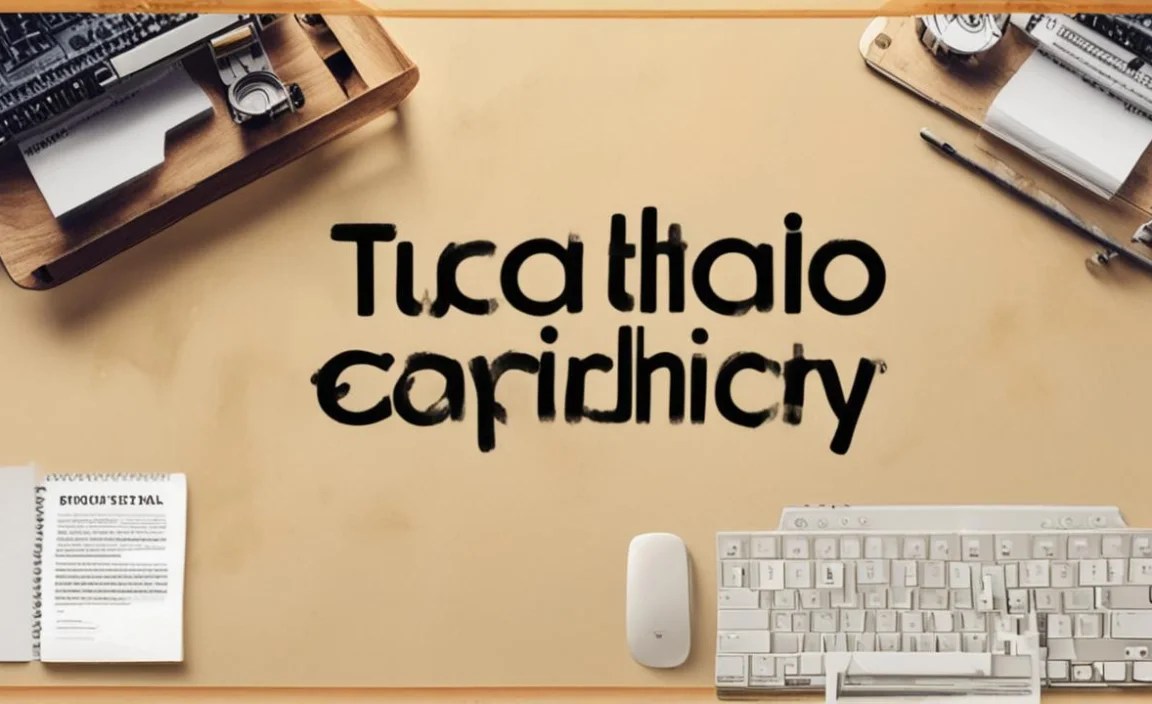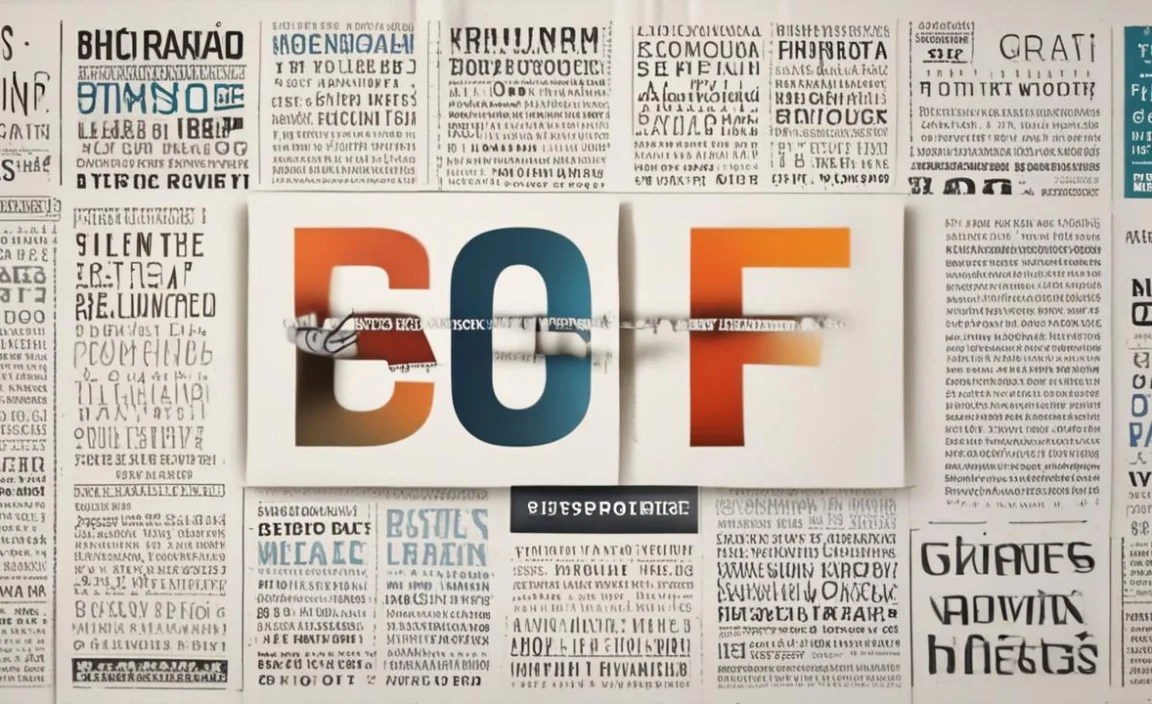
Unlock creative uses of typography to elevate your designs! Learn genius hacks for font pairing, hierarchy, and visual appeal to make your projects stand out. Discover how thoughtful type selection and arrangement can transform ordinary content into extraordinary visual experiences, even for beginners.
Typography is more than just picking pretty fonts; it’s the art of making written words look amazing and readable. Sometimes, it feels like everyone else knows a secret design language, leaving you staring at a blank canvas with no idea where to start with your fonts. Don’t worry! This guide is here to demystify typography and unlock your creative potential. We’ll explore simple yet powerful techniques to make your text sing, helping you design with confidence and flair, no matter your experience level.
Unlocking the Magic: Why “Creative Uses of Typography” Matters
Think about your favorite websites, books, or posters. What draws you in? Often, it’s the expert use of typography. It guides your eye, sets the mood, and makes information digestible. But what exactly are “creative uses of typography in design”? It’s about moving beyond basic font choices and using type as a dynamic design element. This isn’t about complex coding or advanced software; it’s about smart, intentional choices that make your visuals pop.
For beginners, the world of fonts can seem overwhelming. Sans-serif? Serif? Display? What’s the difference, and how do you make them work together? The good news is that a few creative hacks can dramatically improve your designs. We’ll dive into actionable tips you can use right away.
Beyond the Basics: Genius Design Hacks for Typography
Let’s get practical. These hacks are designed to be easy to implement and will immediately boost the visual appeal and effectiveness of your designs.
1. The Power Duo: Smart Font Pairing
Choosing fonts that complement each other is crucial. It’s like picking clothes for an outfit – they need to go together! A common technique is to pair a serif font with a sans-serif font.
- Serif Fonts: Think of these as the classic, traditional fonts with little “feet” or strokes on the ends of letters. They often feel more formal, sophisticated, and are excellent for body text because the serifs can help guide the eye along the line. Examples include Times New Roman, Georgia, and Garamond.
- Sans-Serif Fonts: These fonts lack those little feet. They appear cleaner, more modern, and minimalist. They’re great for headings, titles, and digital interfaces. Examples include Arial, Helvetica, Open Sans, and Lato.
The Hack: Pair a bold, attention-grabbing sans-serif for your headlines with a readable, elegant serif for your paragraph text. Or, try the reverse! A formal serif heading can be beautifully contrasted with a clean sans-serif body. Always choose fonts with different personalities but similar x-heights or weights to ensure harmony. Tools like Google Fonts’ pairing tutorials offer great starting points.
2. Hierarchy is Your Best Friend
Hierarchy means guiding the reader’s eye through your content in order of importance. Typography is your primary tool for this. How do you create it? Size, weight, and color!
- Size Matters: Your main title should be the largest. Subheadings should be smaller than the title but larger than the body text.
- Weight Wisdom: Use bold fonts for emphasis and to make headings stand out. Light or regular weights are usually best for body text.
- Color Contrast: While often subtle, color can differentiate sections. A dark color for your main text on a light background offers good contrast. Use accent colors sparingly for calls to action or key phrases.
The Hack: Create a clear typographic scale. This is a system of consistent font sizes and weights. For example:
| Element | Font Style | Size |
|---|---|---|
| Main Title | Sans-Serif, Bold | 36px |
| Section Heading | Sans-Serif, Semi-Bold | 24px |
| Sub-heading | Serif, Italic | 18px |
| Body Text | Serif, Regular | 16px |
| Captions/Footnotes | Sans-Serif, Light | 12px |
This consistent scale makes your design predictable and easy to navigate. Keep it between 3-5 levels of hierarchy for clarity.
3. Playing with White Space (Negative Space)
White space is the empty area around and between elements in your design. It’s not wasted space; it’s a crucial design tool! Generous white space makes text more readable and less overwhelming.
The Hack: Don’t cram your text! Increase the line height (leading) and letter spacing (kerning or tracking) slightly. A good rule of thumb for body text is to have line height be about 1.5 times the font size. For example, if your font is 16px, aim for 24px line height. This prevents text from feeling dense and claustrophobic, making it a pleasure to read.
4. Expressive Display Fonts for Impact
Display fonts are designed for larger sizes and are meant to grab attention. Think of them as the artistic superstars of the font world!
Start with the techniques that feel most accessible to you. Choose a bold headline font and pair it with a simple body font. Increase your line spacing for better readability. See how these small changes make a big difference. With practice and a bit of creative daring, you’ll soon be making design decisions that are not only beautiful but also incredibly effective. Happy designing!